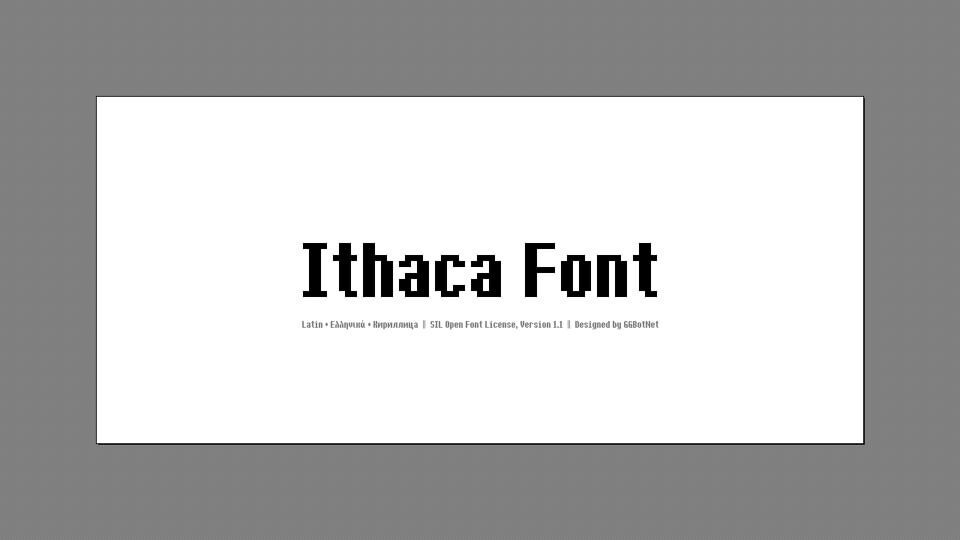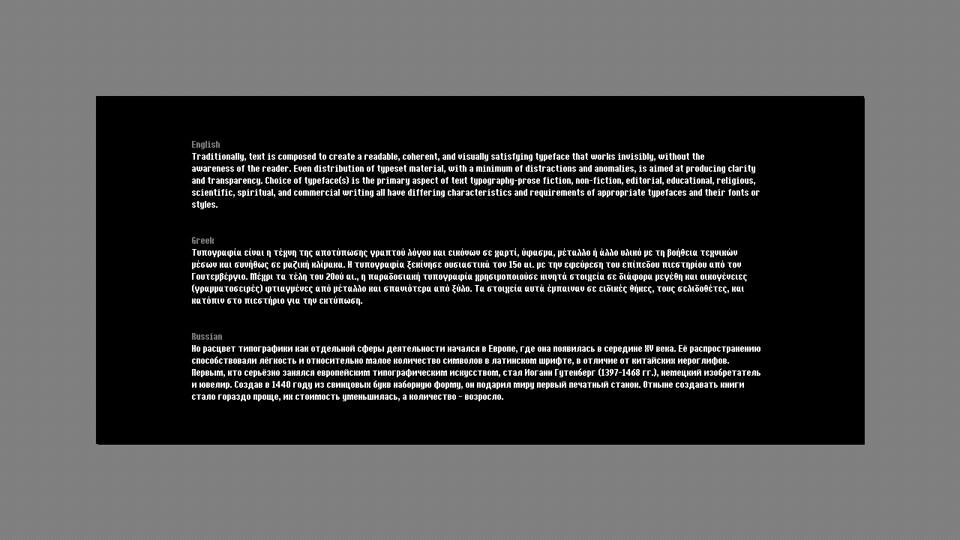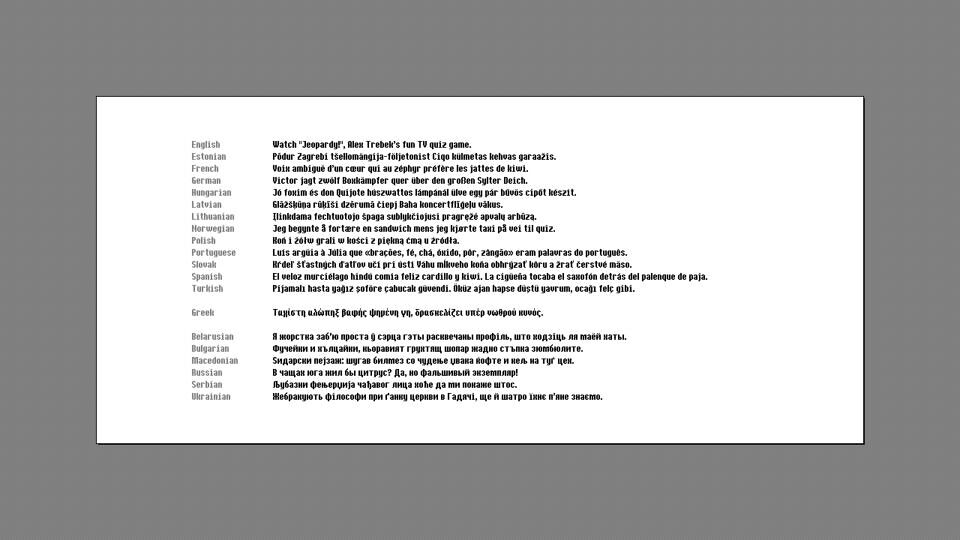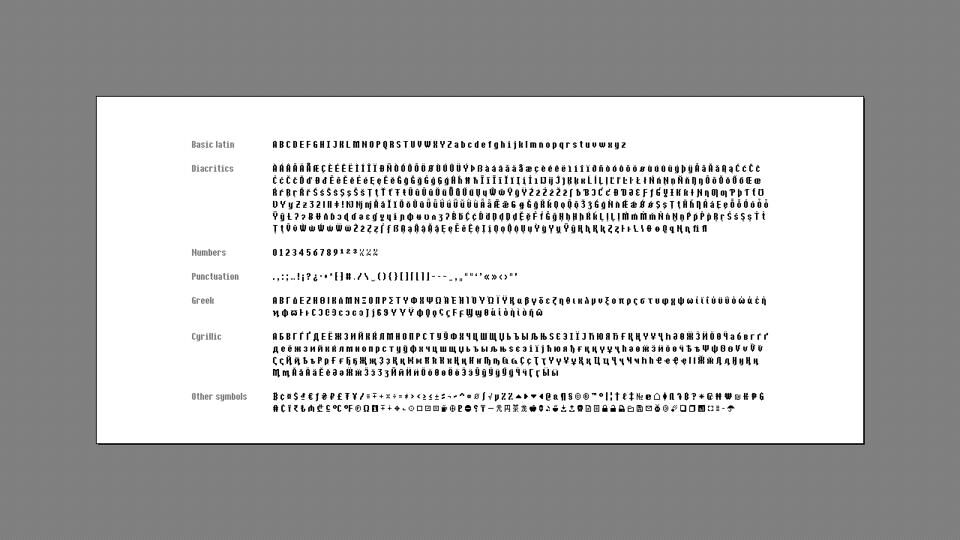
Ithaca is a crisp, monospaced bitmap font by GGBotNet, inspired by retro computer terminals and vintage video games. With a bold, grid-based design and sharply defined edges, it delivers exceptional legibility even at small pixel sizes.
Ideal for tech‑themed UIs, pixel art, game interfaces, posters, and digital branding.